dot-font: The Pleasures of Old Type Books
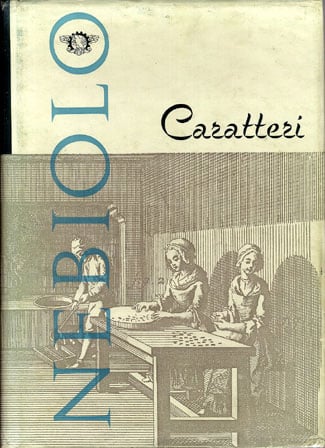
Figure 1: A 1950s book of type specimens from the Nebiolo type foundry in Italy.
Aldo Novarese’s Early Types
Nebiolo was one of the major Italian type foundries, at a time when Italian design was on the cutting edge—though the type business, unlike some other aspects of visual communication, was quite conservative. You wouldn’t know it to page through “Caratteri Nebiolo,” but the foundry employed one of the best-known modern type designers in Italy, the prolific Aldo Novarese, whose myriad typefaces have spread around the world. His most influential typeface design appears in
this book (although no designer credit is given): Microgramma (see Figure 2).
Figure 2: Detail from the opening page of the Microgramma section.
Microgramma was a quintessentially modern typeface—not “modern” in the type-history sense, as a high-contrast roman letter with a vertical axis, but modern in the 20th-century sense: streamlined, clean, sleek, stripped to its essentials. It’s a sans-serif typeface built on the form of a rounded square—or rather a rectangle, slightly upright in the normal width, stretched out in the wide, and strictly narrow in the condensed. There’s a bold, but the fairly light-looking regular weight defines the face—and the look of Italian modernism in print. The rounded corners and squared turns make Microgramma look like machined wire (see Figure 3).
Figure 3: Microgramma bold extended in use.
In digital or photo type, the flat-sided forms would make it possible (and tempting) to set the letters too close together, but these were metal types; even fitted tight, they kept enough room to breathe. Microgramma was a purely uppercase typeface; Novarese’s later extension of it into a lowercase, which was released under the name Eurostile, does not appear in this specimen book. But other Novarese creations do, in a variety of weights and widths and styles. His Egizio, for instance, which has been much imitated, took 19th-century slab-serif display faces and introduced their lively but slightly clunky vigor into the 1950s (see Figure 4).
Figure 4: Egyptian-style types from the Nebiolo collection.
Samples and Show-offs
The creators of the specimen book wanted it to be both a reference and a way to show off their type and how it might be used. Some pages simply give sample settings of words and phrases at different sizes and in different languages, to reflect their international clientele (see Figure 5).
Figure 5: Sample settings in graded sizes of Quirinus.
Others show well-constructed pages that suggest ways to use the typeface in real-world situations (see Figure 6).
Figure 6: Part of a page showing Athenaeum in use, including one of its decorated initial caps.
Still others show imaginative juxtapositions of different typefaces (see Figures 7-9).
Figure 7: Several weights, styles, and sizes of Quirinus in practical use.
Figure 8: Contrasting Microgramma with a script typeface, and using the Microgramma M as a graphic element.
Figure 9: Detail from the opening page of the section on the typeface Fluidum.
Many of the sections of the book start with an opening page announcing the theme of the typeface (see Figure 10).
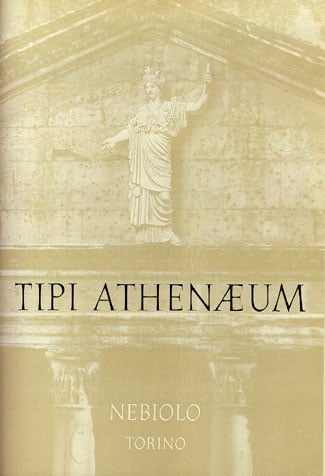
Figure 10: Opening page of the Athenaeum section.
And sometimes the book designer just plain shows off, pulling out all the stops and flinging ornaments, borders, and ornamental caps into the fray (see Figure 11).
Figure 11: A double-page spread, showing typographic borders and graphic elements as well as a variety of sizes and styles of type.
Modular Book(lets)
Many of the most exuberant demonstrations of the various typefaces in use were first created as flyers or brochures to promote individual new faces. Tucked into the back of my copy of the book is a four-page, three-color specimen of a condensed version of Egizio (“Egizio stretto neretto”), combined with a showing of a script face in what they call “tipo inglese” (English copperplate style), called Juliet. These brochures could be bound into signatures for a new specimen book, or kept separate as a promotional hand-out (see Figure 12).
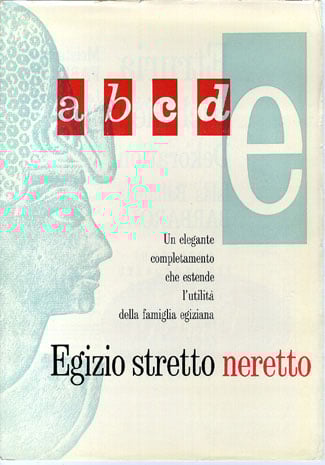
Figure 12: Opening page showing a then-new condensed version of Aldo Novarese’s typeface Egizio.
Custom Casting
At the front of the book is a short section on ordering type from Nebiolo carefully explained in five languages. Since this was a true foundry, casting type in metal to order, the instructions on “How to Place Your Orders” includes worries that would never occur to a user of digital type, such as the printing height (how tall each piece of type must be) or the weight of the metal type to be shipped: “The weights given refer to types delivered in Italian fonts and are approximate with a tolerance of plus or minus 5 to 10%. For types to be supplied in French, Spanish, German, English, Portuguese, Dutch, Belgian, etc. fonts, weights vary according to the font wanted.” It gives new meaning (or rather, a much older meaning) to the notion of “the weight of a font.” We don’t order type in the same way today, but the printed specimens presented in this 1950s book can give us inspiration for designing with type—and send us scurrying to try and find some of these typefaces in digital form. The nature of these once-new type designs is both elusive and insistently material: it would be hard to come by most of them as metal type today, but the printed manifestation of the types in use remains.